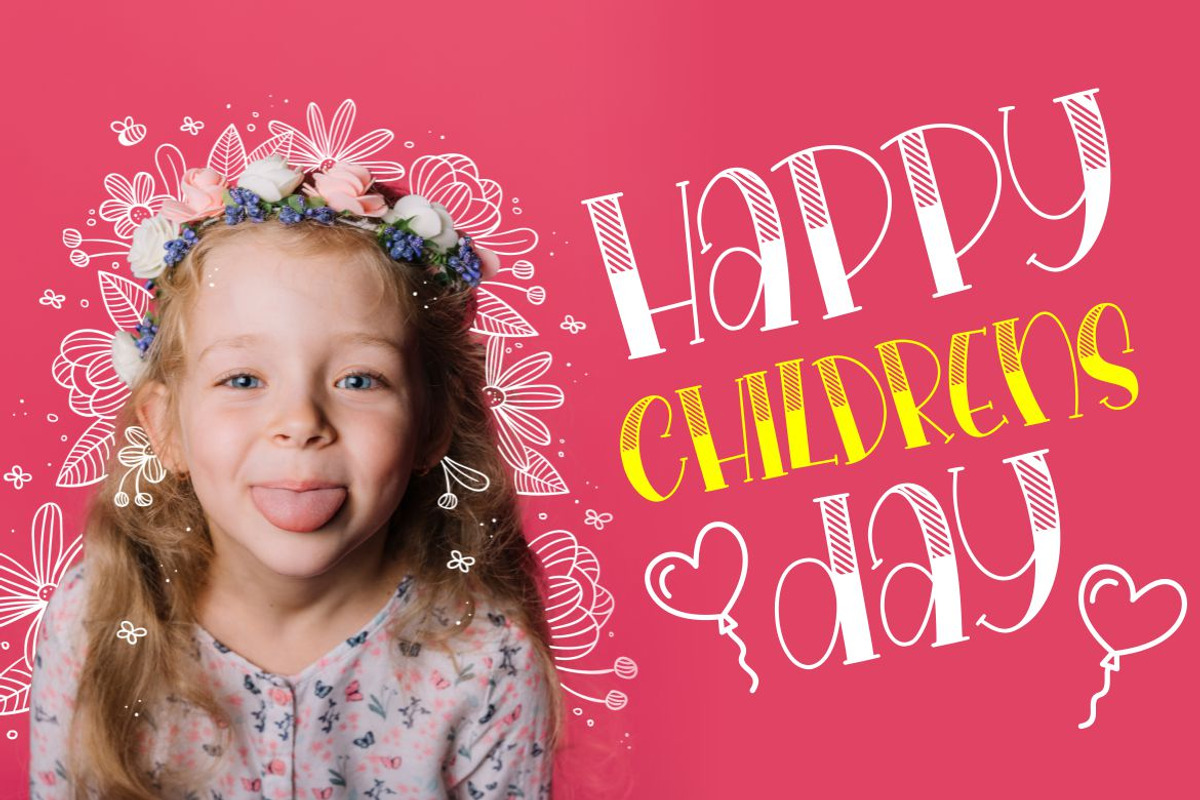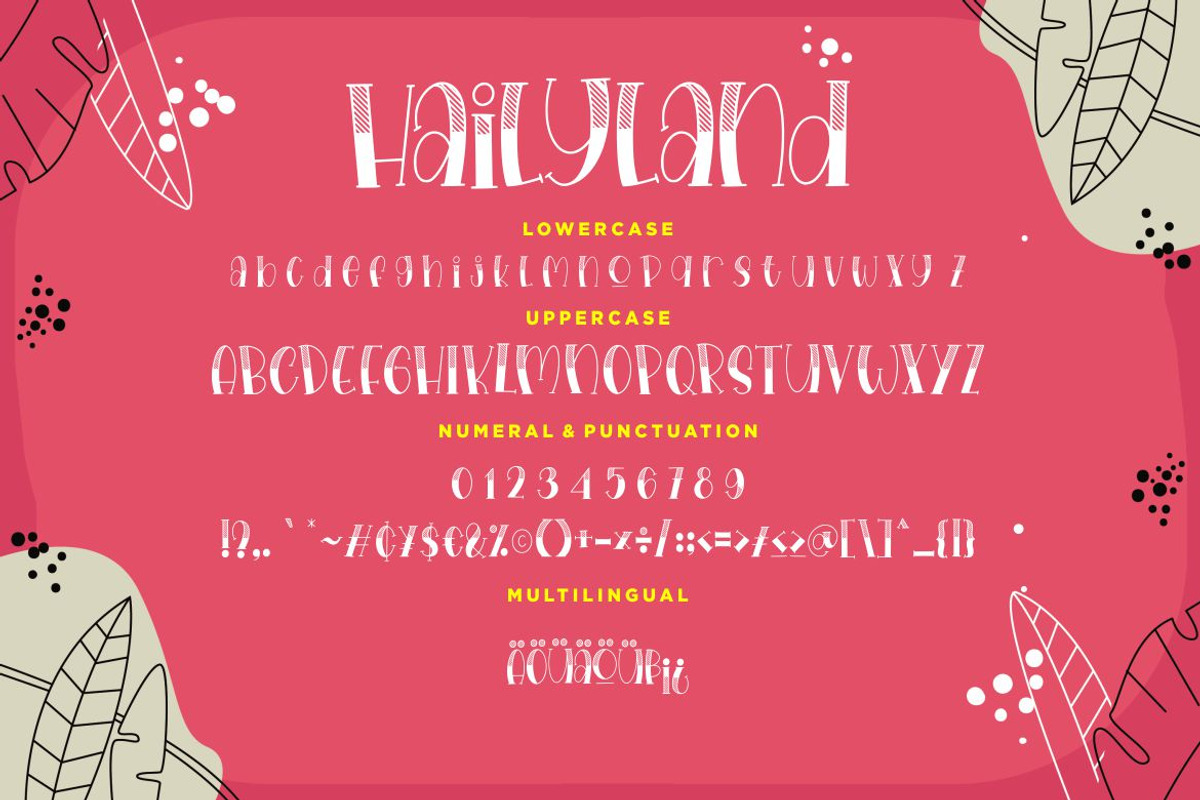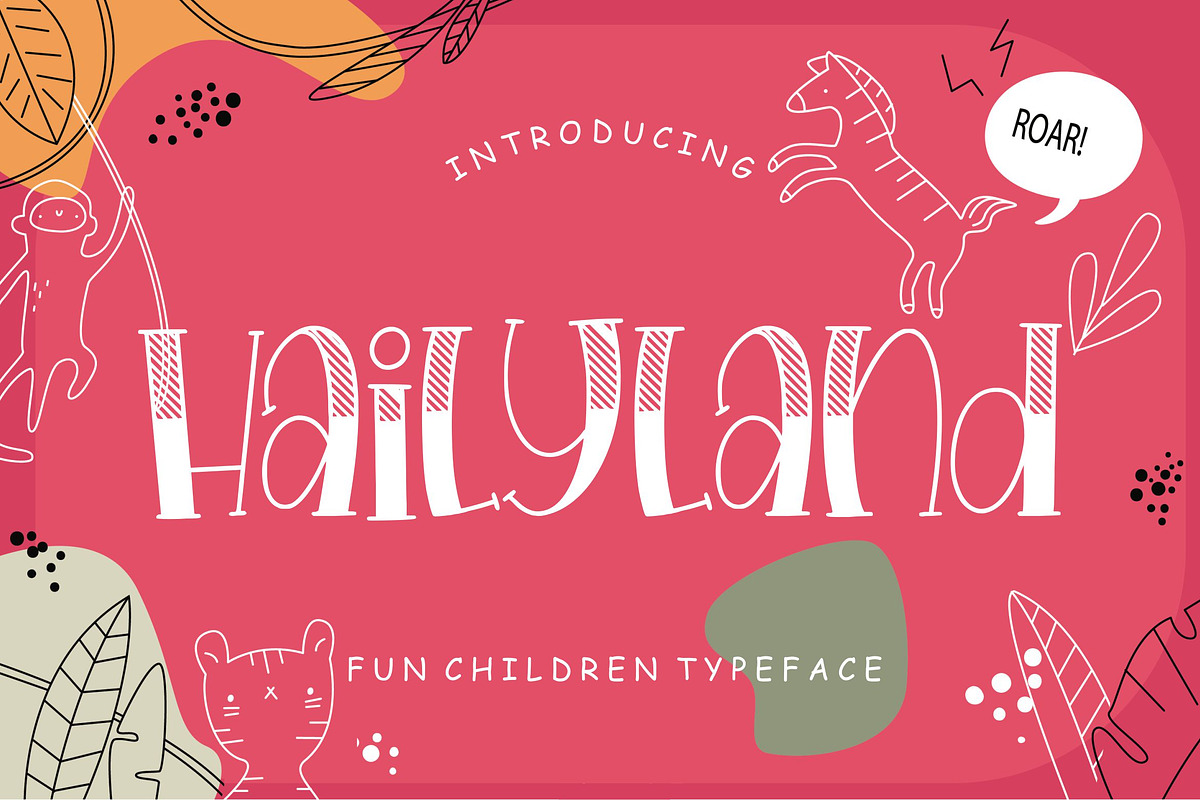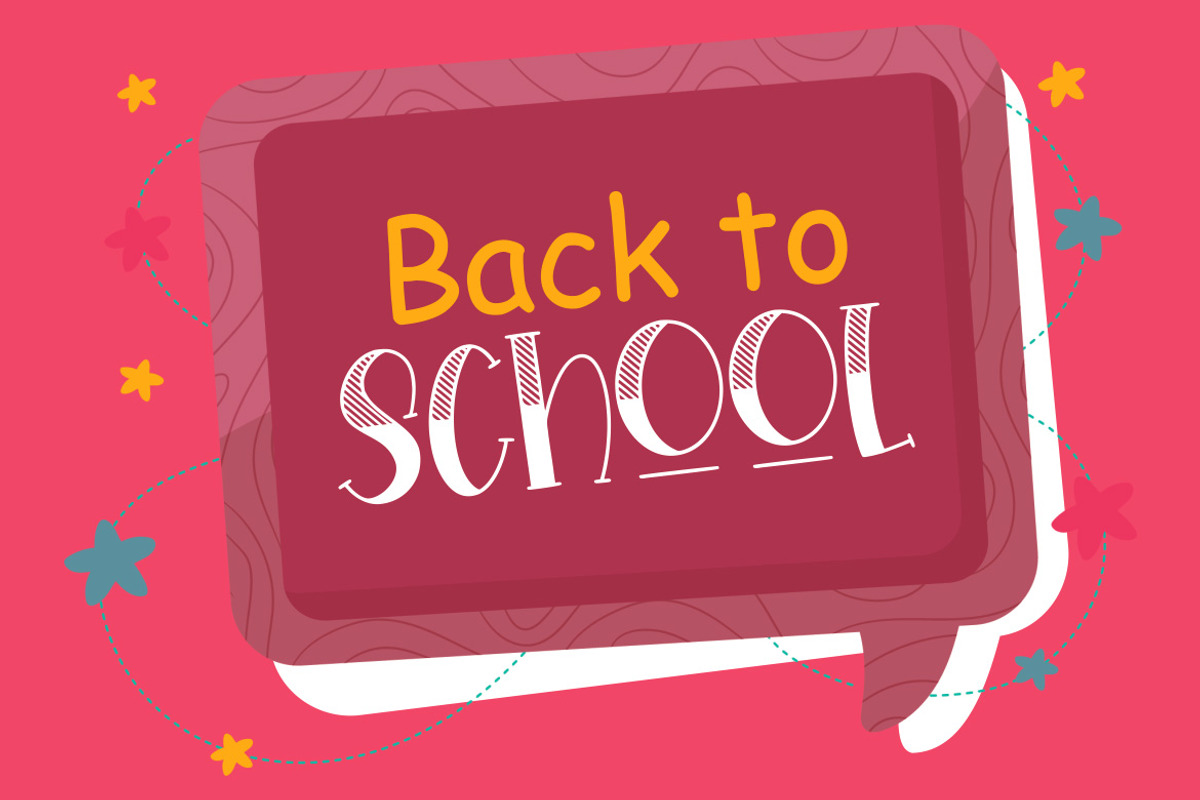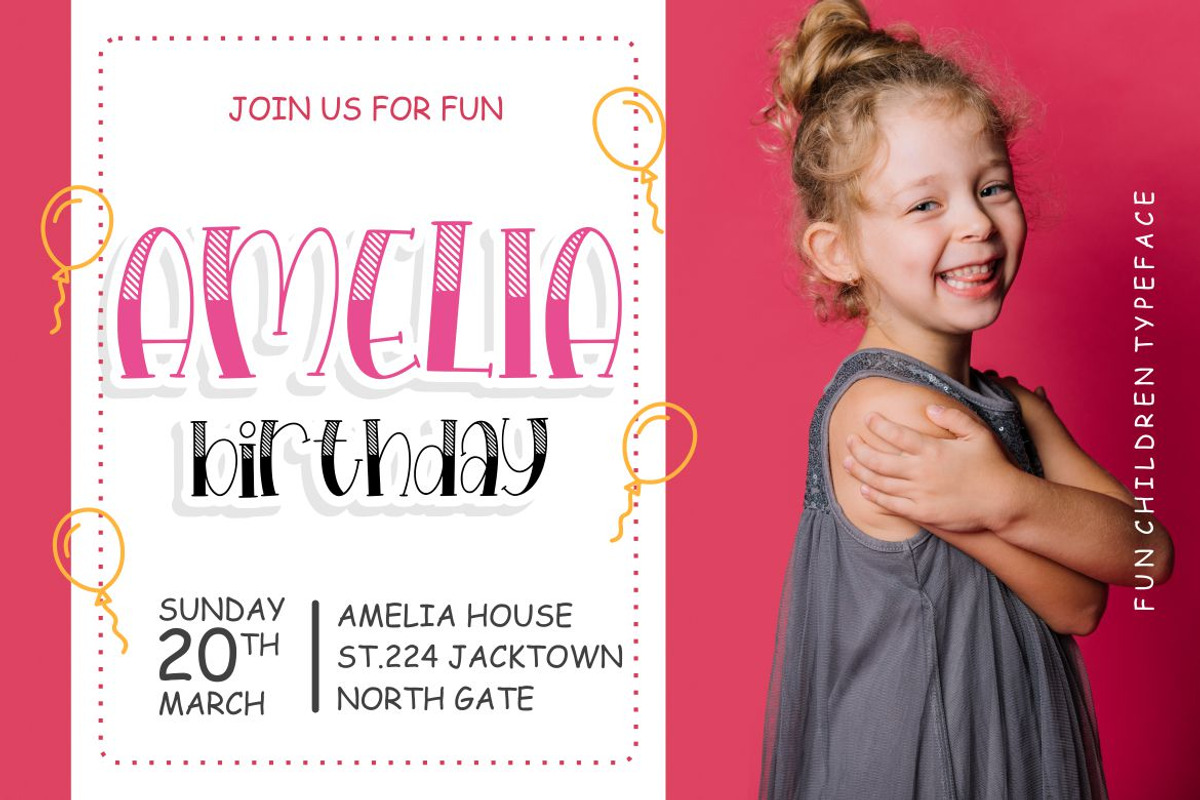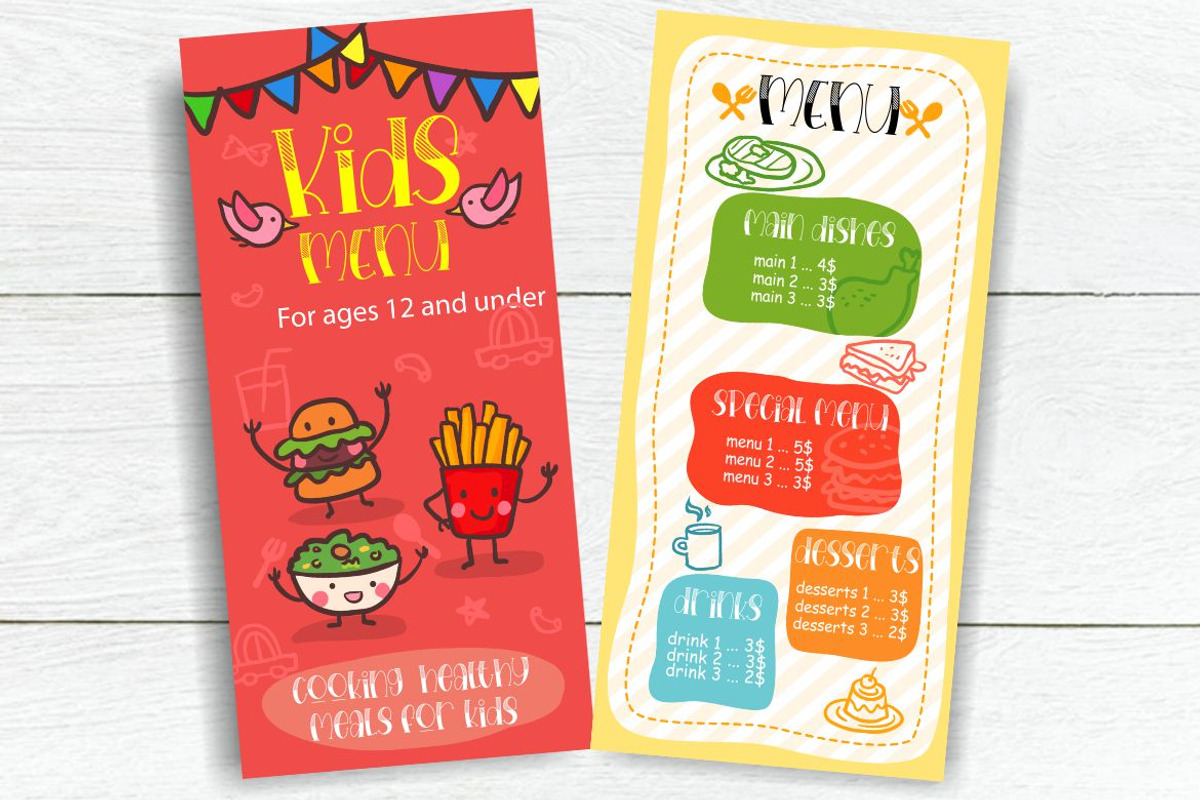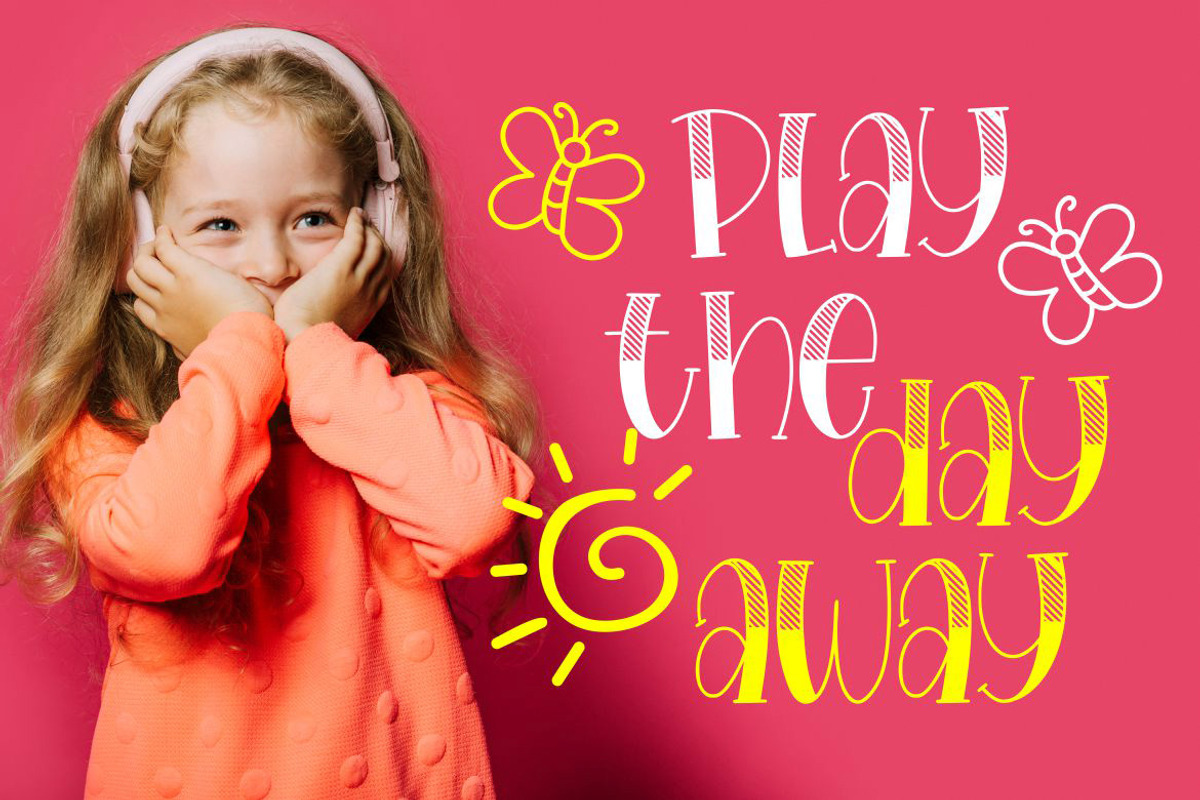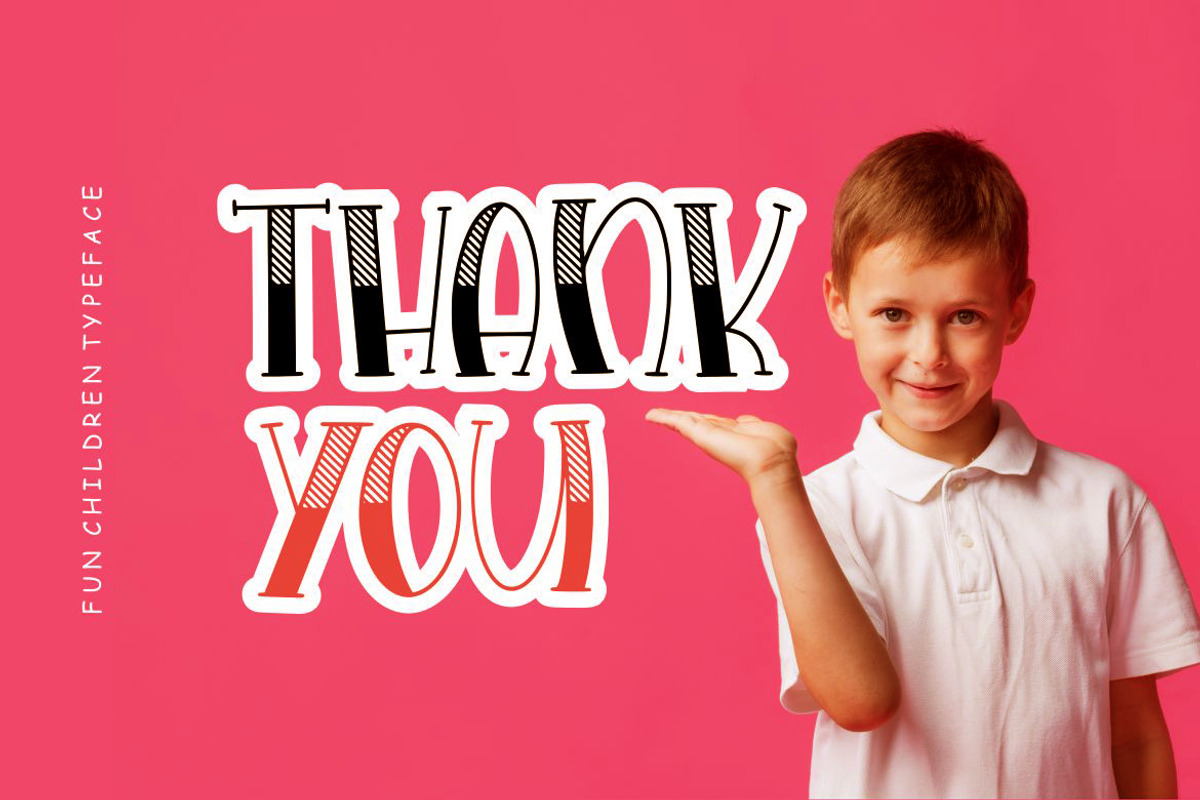
Hailyland Fun Advertisement Font
Hailyland is a beautiful fun children font which perfect for children and kindergarten occasion.
Hailyland is perfect for branding projects, logo, wedding designs, social media posts, advertisements, product packaging, product designs, label, photography, watermark, invitation, stationery and any projects that need handwriting taste.
Hailyland Fun Advertisement Font by Creatype Studio fits naturally into Branding, posters, packaging, typography.